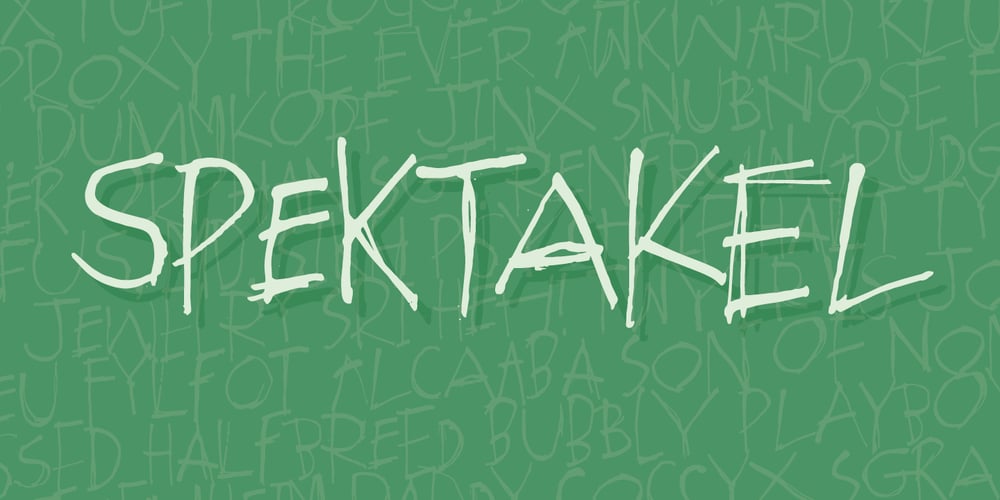
Spektakel
Spektakel font
Spektakel Font Family was designed by Jakob Fischer and published by PizzaDude.dk. Spektakel contains 1 styles and family package options. Spektakel is danish for something noisy – just like this font! Comes with 5 different versions of each letter, and these cycles as you type! A great way to make your text all wild and grungy – and still legible! Of course, without making too much noise, Spektakel has got multi language support!